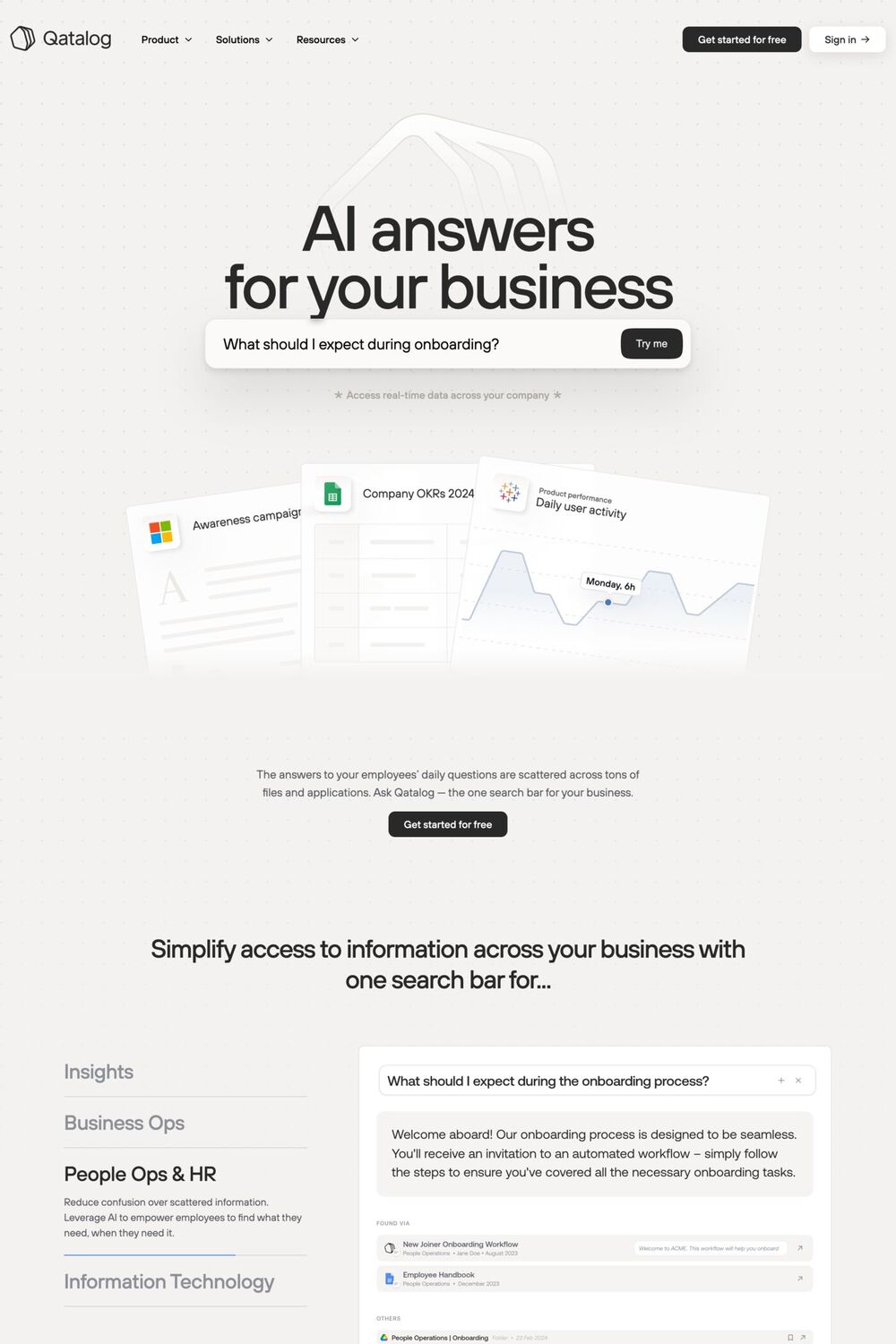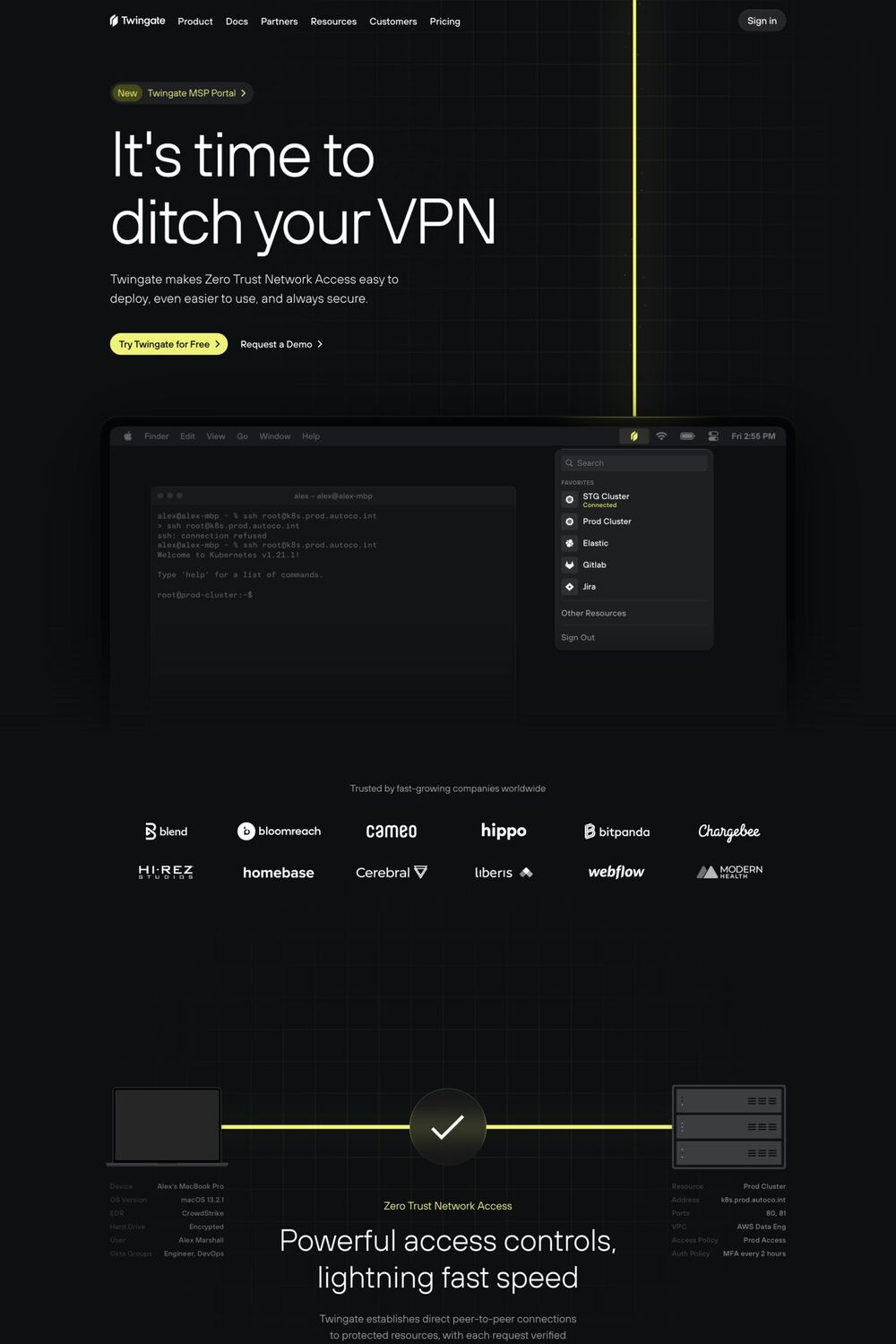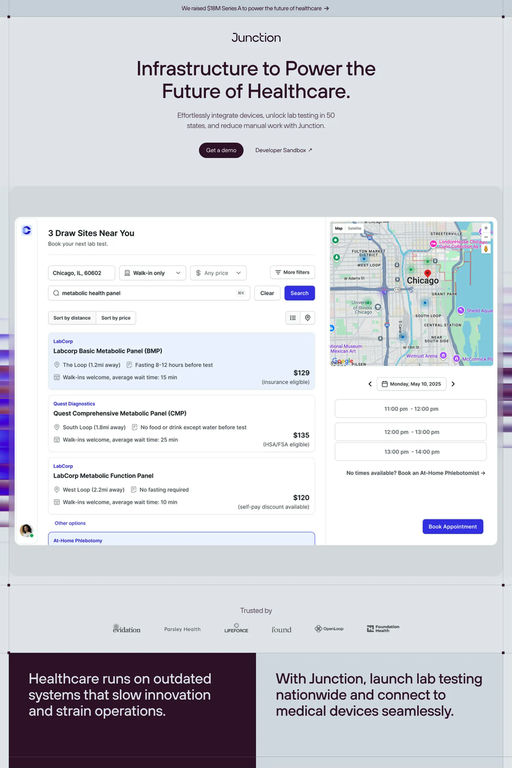
TT Hoves is a sans-serif typeface from Type Type.
TT Hoves Pro is the studio’s bestseller, one of the top three universal sans serifs along with TT Norms® Pro and TT Commons™️ Pro. TT Hoves Pro has a neutral yet recognizable character suitable for use in any modern project. The font has a large character set, including extended Cyrillic and Latin, as well as a large number of styles.
A1 features 3 websites using TT Hoves, including Junction, Qatalog, and Twingate. They lean towards Animated, Pattern, and Mesh gradients design styles, and they’re most often built with Webflow, Next.js, and Framer.